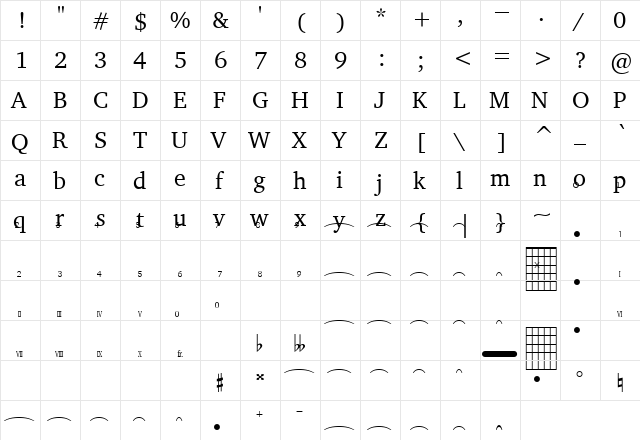
FretQwikC Regular
| Designer | Robert Allgeyer (Santa Cruz, CA USA) |
Design Context for FretQwikC Typeface
FretQwikC is a composed and adaptable typeface that performs quietly and consistently across a wide range of design contexts.